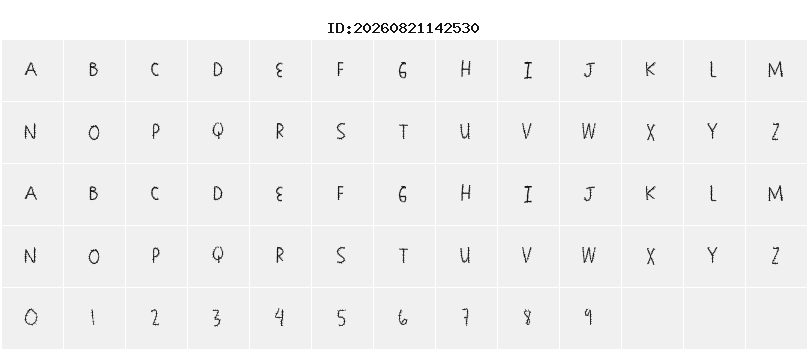
SeamingStitchy Preview
• Font Name: SeamingStitchy
• Font ID: SeamingStitchy:Version 1.00
• Full Font Name: SeamingStitchy
• Version: Version 1.00 January 4, 2013, initial release
• PostScript Name: SeamingStitchy
• Character Count: 66
• Designer: Max Infeld
• Manufacturer: Xerographer Fonts
• Description: This font at in Chico,CA Xerographer Studios
About SeamingStitchy.ttf
SeamingStitchy.ttf is a modern, elegant sans-serif font designed for ultimate readability and visual harmony. Perfect for branding, headlines, web design, and print materials.